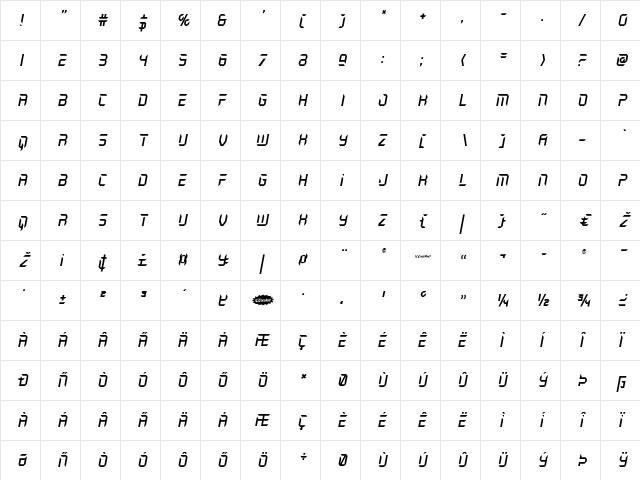
Holo-Jacket Title Italic Italic
Design Context for Holo-Jacket Title Italic Typeface
Holo-Jacket Title Italic is a composed and adaptable typeface that performs quietly and consistently across a wide range of design contexts. The slanted form adds forward momentum and visual energy.
Pro Tip: Use Holo-Jacket Title Italic for emphasis, pull quotes, and subheadings where its slanted energy can add rhythm to the layout.